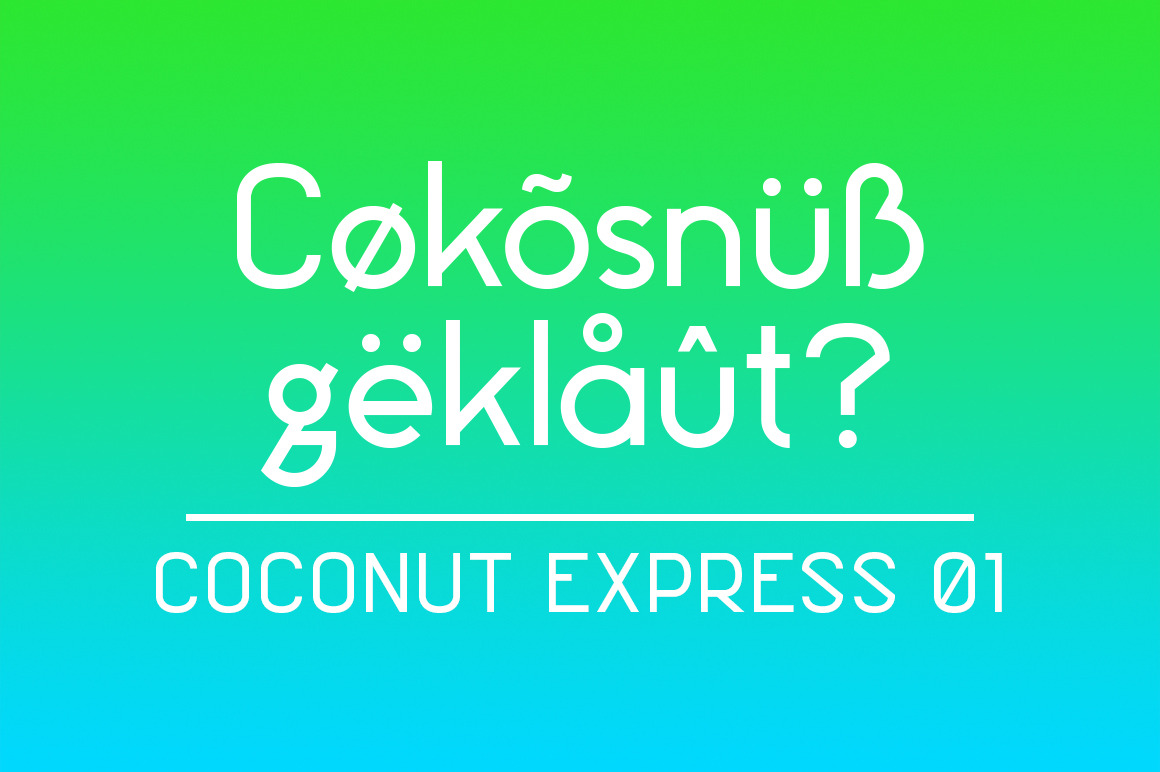
Coconut Express Font
Coconut Express is a geometric sans serif font. Perfect for, headers and small amounts of text. There are some special characters like the "S", "g", "?". Have fun!